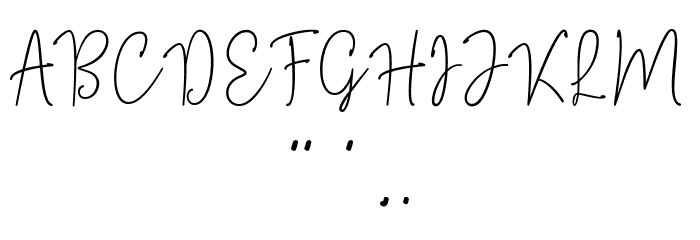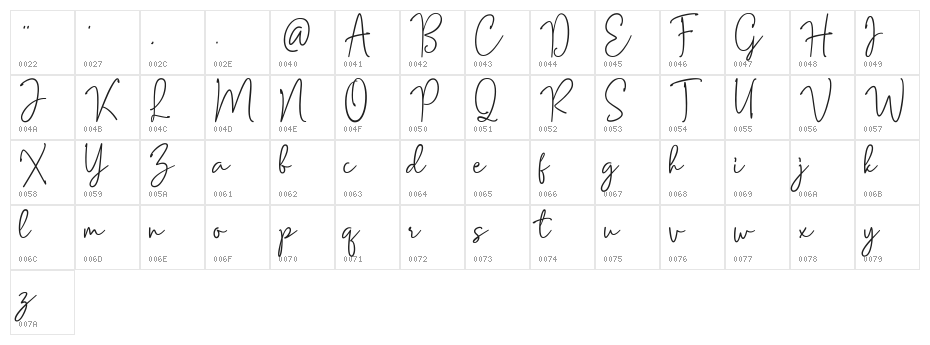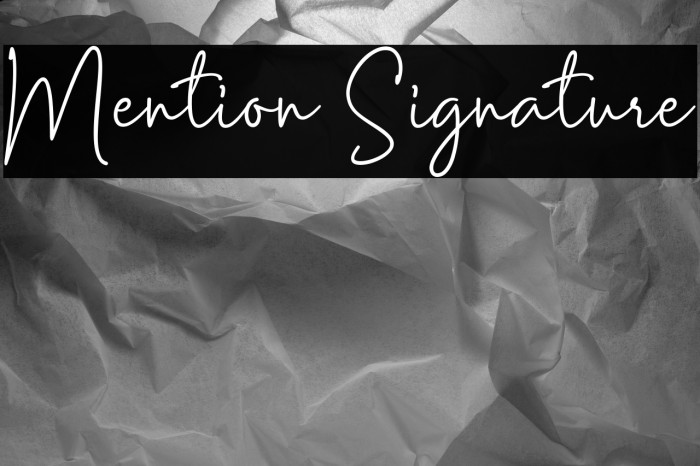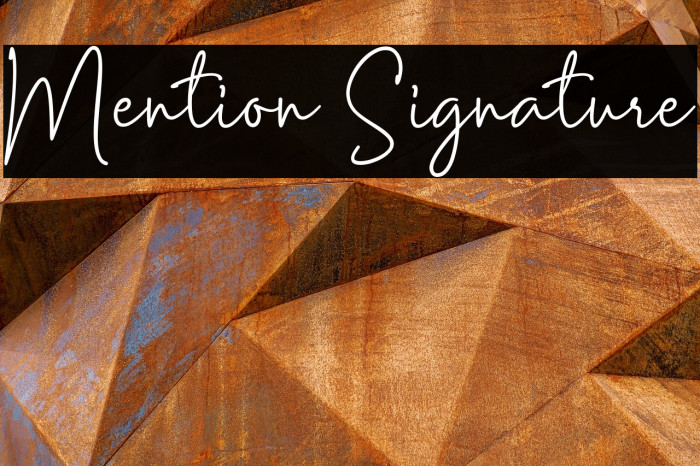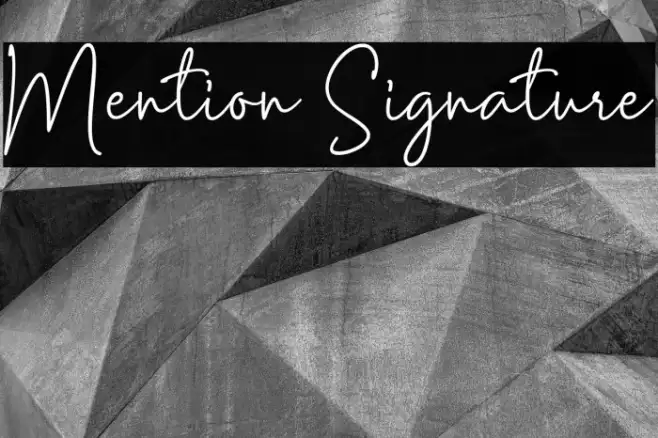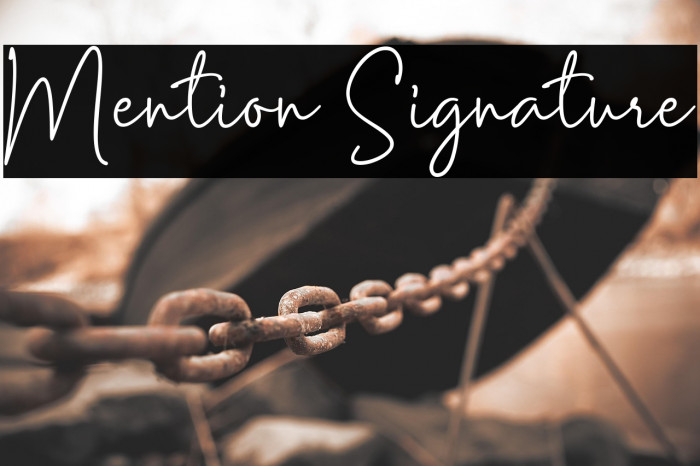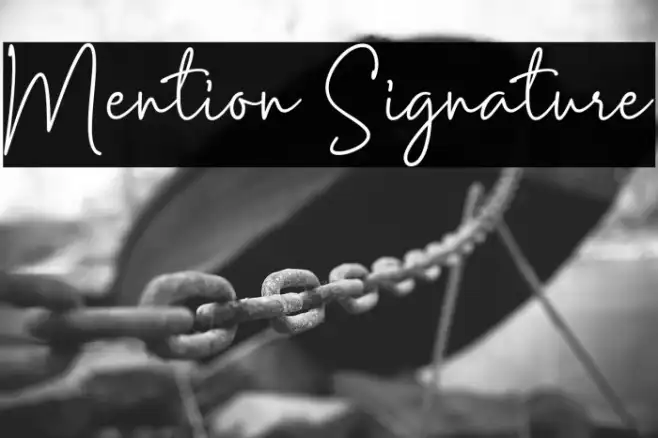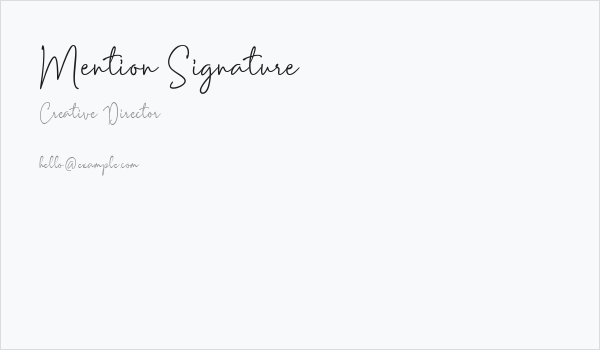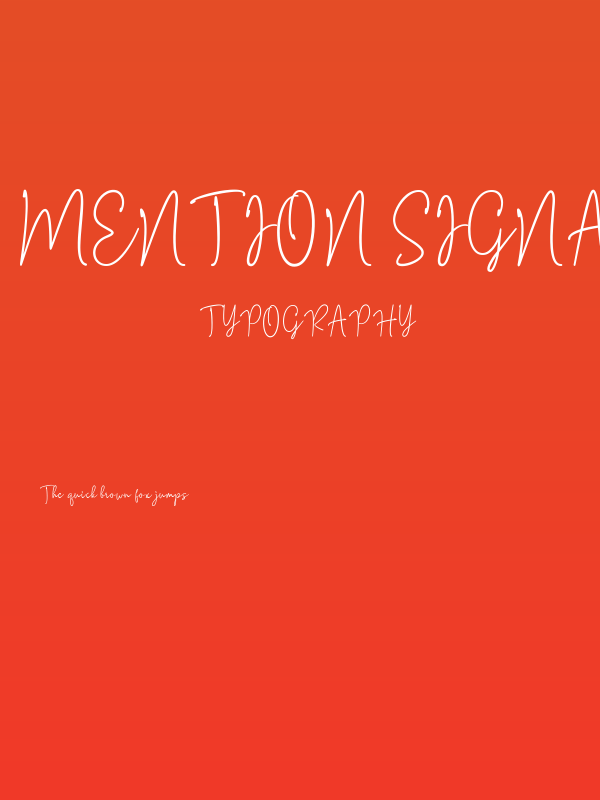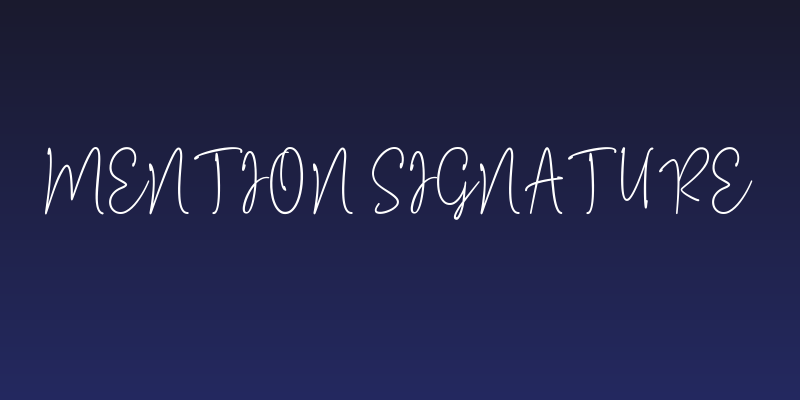
Mention Signature Font
Mention Signature Description
This font exudes a casual elegance with its handwritten style, characterized by fluid, cursive strokes that mimic natural handwriting. The uppercase letters are tall and slender, while the lowercase letters have a more rounded and flowing appearance. The font maintains a consistent stroke width, giving it a clean and polished look. The characters are well-spaced, allowing for easy readability despite the script style. This font is versatile, suitable for both formal and informal applications, and adds a personal touch to any design.
| Overall Style | Casual, Elegant |
| Proposed Projects | Ideal for wedding invitations, personal branding, greeting cards, and social media graphics. |